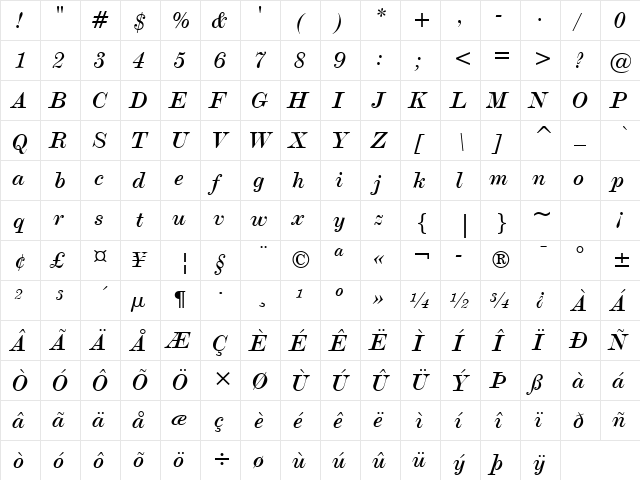
Modern20 BT Italic Font Preview
Modern20 BT Italic
Modern20 BT Italic Font Details
Design Context for Modern20 BT Typeface
Modern20 BT takes a measured approach to typography — its balanced proportions and neutral character make it a reliable workhorse for both digital and print work. The dynamic lean of this cut emphasises speed and emphasis in any layout.